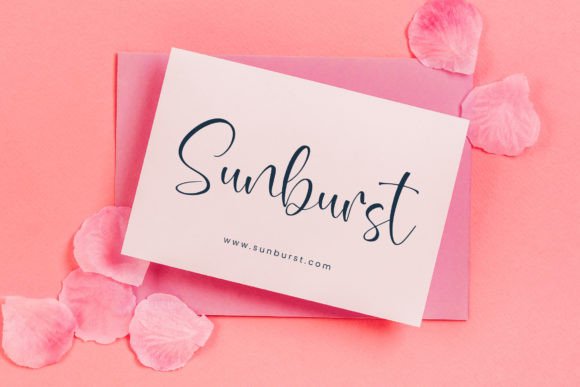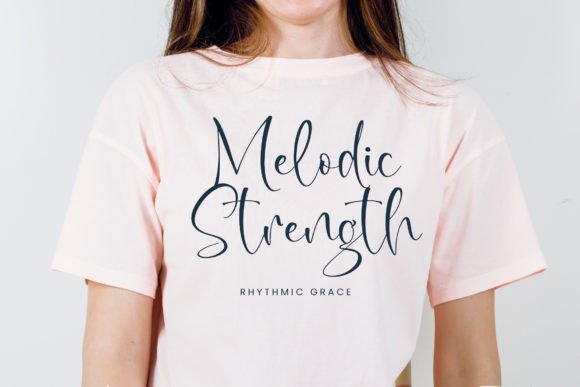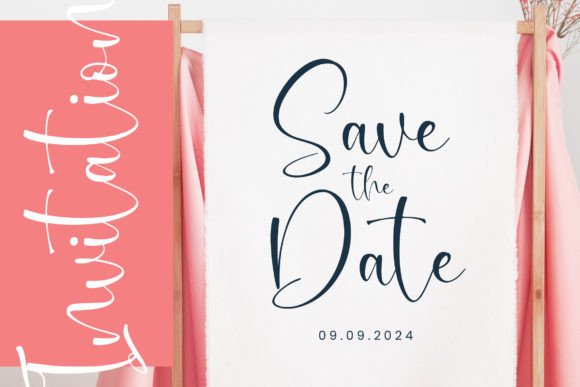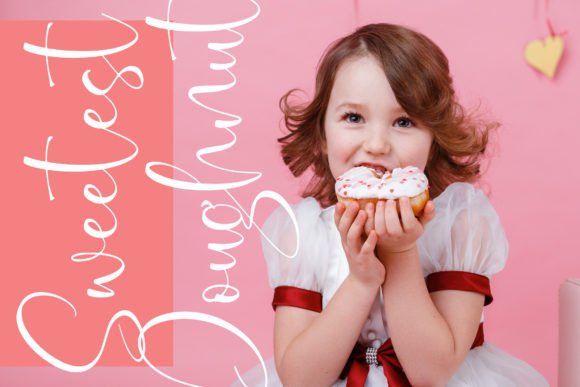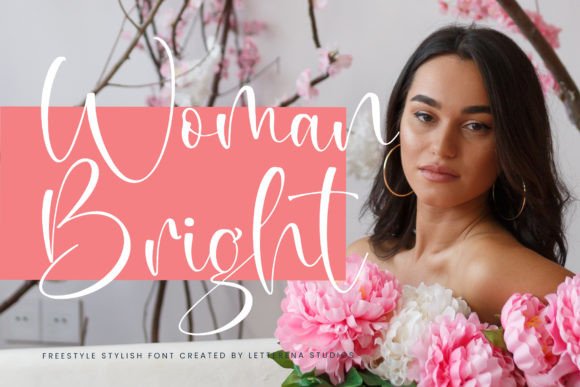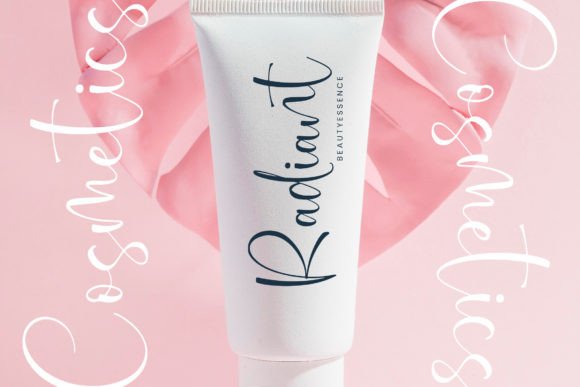
Introducing Georgian Sakuranbo Font: Elevate Your Designs with Luxury and Style
In the world of typography, fonts play a pivotal role in conveying messages, evoking emotions, and creating lasting impressions. For designers, crafters, and anyone looking to add a touch of elegance and sophistication to their projects, the Georgian Sakuranbo Font is a game-changer. This stunning script font, crafted by Letterena, is not just a typeface but a statement piece that can transform any design into a masterpiece.
What is Georgian Sakuranbo Font?
Georgian Sakuranbo Font is a luxury script font that embodies the essence of freestyle elegance. Its unique and flowing design makes it stand out from the crowd, offering a fresh and modern aesthetic that’s perfect for a wide range of projects. Whether you’re working on logos, branding projects, homeware designs, product packaging, or any other creative endeavor, this font is sure to add a touch of sophistication and class.
Key Features of Georgian Sakuranbo Font
- Versatility: Georgian Sakuranbo Font is incredibly versatile, making it suitable for a myriad of projects including logos, branding projects, homeware designs, product packaging, mugs, quotes, posters, shopping bags, t-shirts, book covers, name cards, invitation cards, greeting cards, labels, photography, watermarks, and special events.
- Luxury Appeal: The font exudes luxury and elegance, making it perfect for projects that require a high-end feel. Its stylish and sophisticated design ensures that your creations stand out and leave a lasting impression.
- Unique Style: The font boasts a unique and distinctive style that can add a personal touch to your designs. Its freestyle nature allows for creative freedom, enabling you to experiment with different design elements.
Applications of Georgian Sakuranbo Font
The possibilities are endless with Georgian Sakuranbo Font. Here are some of the many ways you can utilize this luxurious script font:
- Branding and Logos: Create memorable logos and branding materials that reflect your brand’s personality and values.
- Stationery and Invitations: Add a touch of elegance to your stationery, invitation cards, and greeting cards.
- Packaging Design: Elevate your product packaging with a sophisticated and stylish font that captures the essence of your product.
- Marketing Materials: Use the font in your marketing materials such as brochures, flyers, and posters to create visually appealing and effective campaigns.
- Merchandise: Design stunning merchandise like t-shirts, mugs, and shopping bags that showcase your creativity and style.
Why Choose Georgian Sakuranbo Font?
In a sea of fonts, Georgian Sakuranbo stands out for its unique blend of luxury, style, and versatility. Here are a few reasons why designers and crafters should consider adding it to their collection:
- Unique Design: The font’s distinctive design ensures that your projects have a unique and personalized touch.
- High-Quality: Crafted with precision and attention to detail, Georgian Sakuranbo Font is of the highest quality, ensuring that your designs look professional and polished.
- Support for Various Projects: Its wide range of applications makes it a valuable asset for any designer or crafter looking to expand their creative horizons.
Georgian Sakuranbo – Freestyle Stylish Font by Letterena is more than just a typeface; it’s a design statement. Its luxurious appeal, versatility, and unique style make it an indispensable tool for designers and crafters aiming to create stunning and memorable projects. Whether you’re looking to elevate your branding, packaging, or marketing materials, or simply want to add a touch of elegance to your creative projects, Georgian Sakuranbo Font is the perfect choice. Embrace the world of luxury typography and let Georgian Sakuranbo Font be the voice of your brand and creativity.